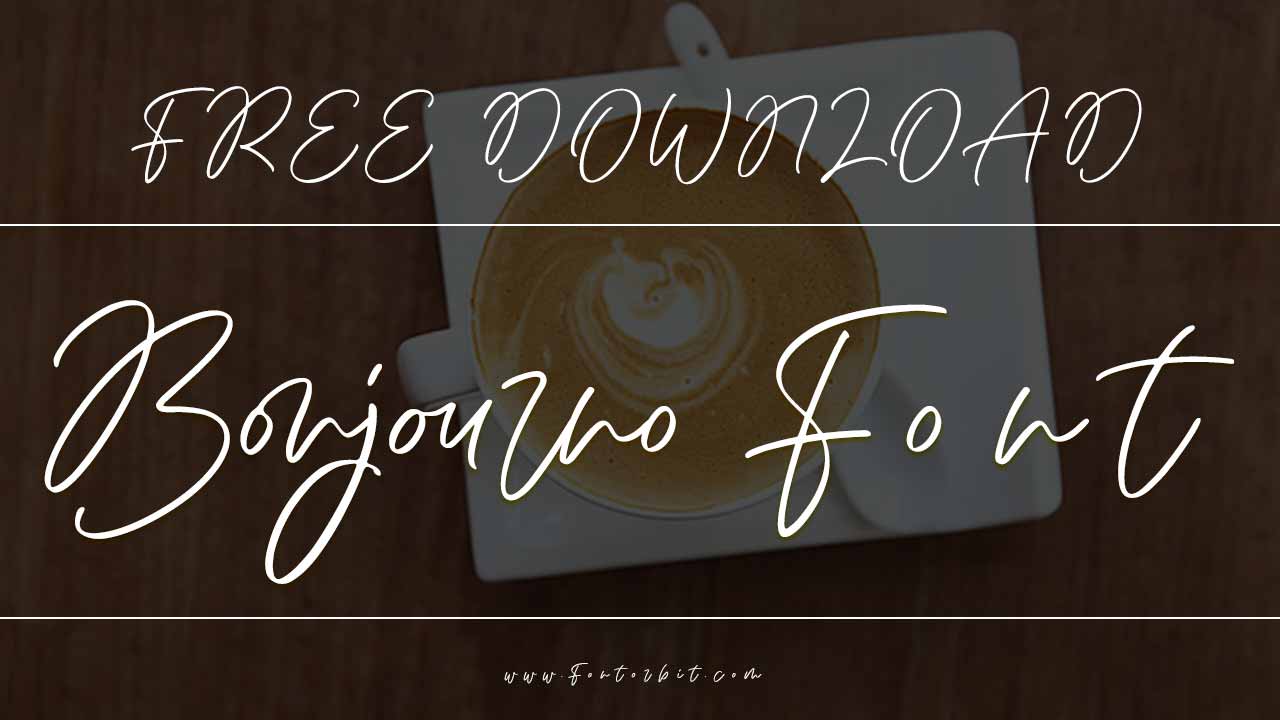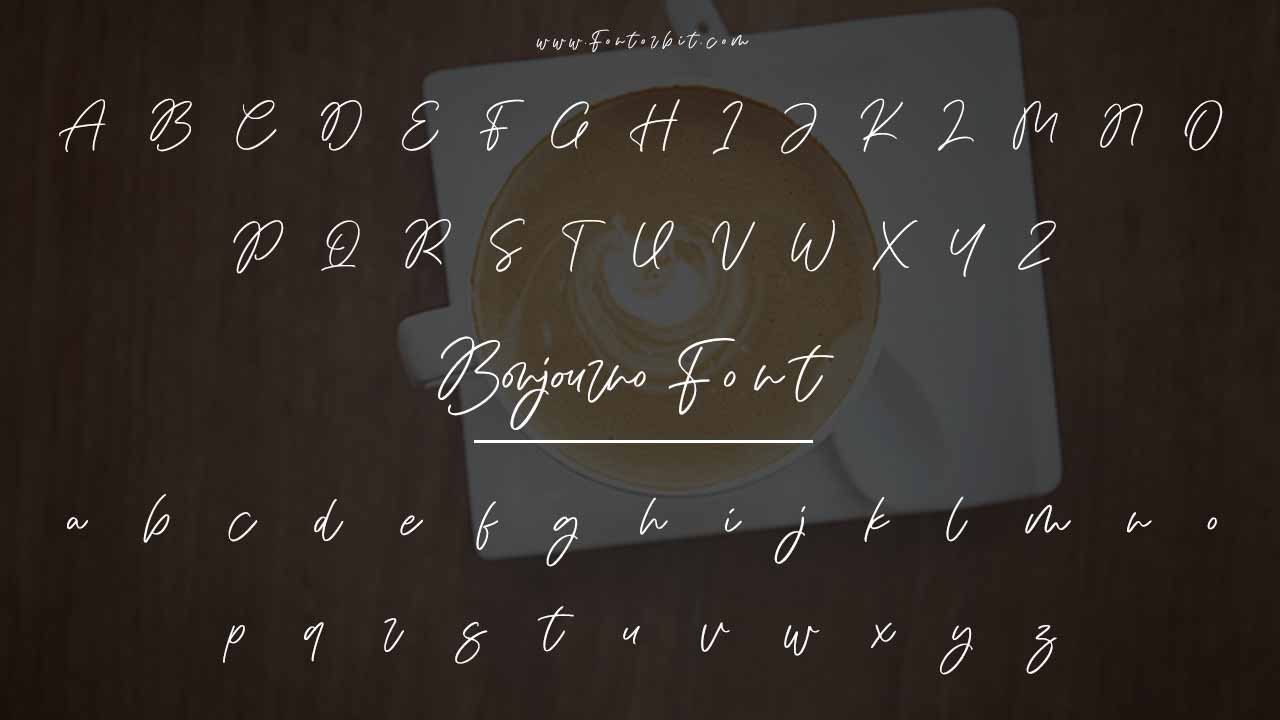
In the world of typography, finding a font that embodies elegance and versatility can be challenging. Enter Bonjourno Font, a modern calligraphy font that captures the delicate beauty of handwritten letters while maintaining a contemporary, polished look. Designed by Muhammad Fathurrohman and published by Aestherica Studio, this font has quickly become a favorite among designers for its graceful curves, stylistic alternates, and ligatures. Whether you’re designing for branding, invitations, or creative projects, Bonjourno offers a sophisticated, yet approachable style that can elevate any design.
The Bonjourno Font Overview
Bonjourno Font is a handwritten calligraphy typeface that draws inspiration from natural, fluid handwriting while maintaining a highly refined, stylish appearance. The font’s distinguishing features are its elegant strokes, graceful curves, and intricate ligatures, making it suitable for projects that require a personal touch with a high-end finish.
Bonjourno Font Family Includes:
- Bonjourno Regular – The primary version of the font, perfect for most uses. Its smooth, flowing lines and stylistic elegance make it an ideal choice for branding, logos, wedding invitations, and greeting cards.
Why Choose Bonjourno Font?
The allure of Bonjourno Font lies in its combination of modern calligraphy and classic elegance. Its real handwritten appearance is meticulously designed, offering a natural flow that’s hard to distinguish from actual handwriting. The decorative elements, including stylistic alternates and ligatures, give it an elevated, sophisticated flair. These features contribute to the font’s versatility, allowing it to shine across various creative applications. Whether you’re designing a wedding card, a brand identity, or social media graphics, Bonjourno can enhance your designs with its chic charm.
Best Use Cases For Bonjourno Font
Bonjourno Font stands out in various design contexts. Here’s where you can use this font to make your projects stand out:
- Logos & Branding
Incorporating Bonjourno into your brand’s visual identity can instantly elevate your brand perception. With its fluid script, it adds an air of sophistication while maintaining a friendly and approachable tone. Whether you’re designing for luxury brands, lifestyle products, or artisanal goods, Bonjourno fits seamlessly into your brand identity.
- Best for: Fashion brands, beauty products, high-end stationery, boutique stores, and personal brands.
- Pros: Elegant, refined, timeless appeal.
- Cons: Might not be suitable for tech or minimalist brands looking for a more modern sans-serif look.
- Stationery & Invitations
Bonjourno’s delicate style makes it a standout choice for wedding invitations, event invitations, and greeting cards. Its calligraphic elegance brings a personal touch to formal occasions, such as weddings, anniversaries, and upscale parties.
- Best for: Weddings, parties, galas, corporate events, and thank-you cards.
- Pros: Adds a personal, high-end touch to invitations.
- Cons: Not ideal for informal or casual events.
- Magazines & Books
For editorial designs, Bonjourno Font brings a sense of sophistication. It’s especially perfect for magazines that focus on luxury, lifestyle, or design. It gives editorial layouts an artistic feel that appeals to readers who value visual storytelling.
- Best for: Fashion magazines, lifestyle publications, art books, and high-end catalogs.
- Pros: Adds artistic flair and elegance to print materials.
- Cons: May not be ideal for body text due to its script style.
- Crafts & Packaging
Bonjourno is also an excellent choice for packaging designs and craft projects. Whether you’re working on gift wraps, labels, or product packaging, this font can bring a unique and chic feel to your designs.
- Best for: Gift boxes, homemade crafts, artisanal products, cosmetics packaging.
- Pros: Elegant with a personal touch that stands out on physical products.
- Cons: The complexity of script might not suit every product style.
- Web & Social Media Graphics
Bonjourno Font’s fluid strokes make it a perfect choice for social media graphics and web banners. It can be used for promotional content, website headers, and social media posts to bring a sophisticated and artistic appeal to digital platforms.
- Best for: Social media ads, blog headers, website banners.
- Pros: Elegant yet playful; stands out on digital platforms.
- Cons: May not be legible in smaller sizes, so it’s best used for headings or featured elements.
Key Features Of Bonjourno Font
- Real Handwritten Calligraphy Look
The essence of Bonjourno lies in its handwritten calligraphy style, making it one of the best options when you want the design to feel personal and intimate. The fluidity of each letter adds an organic feel to your design, perfect for projects that require a human touch.
- Stylistic Alternates & Ligatures